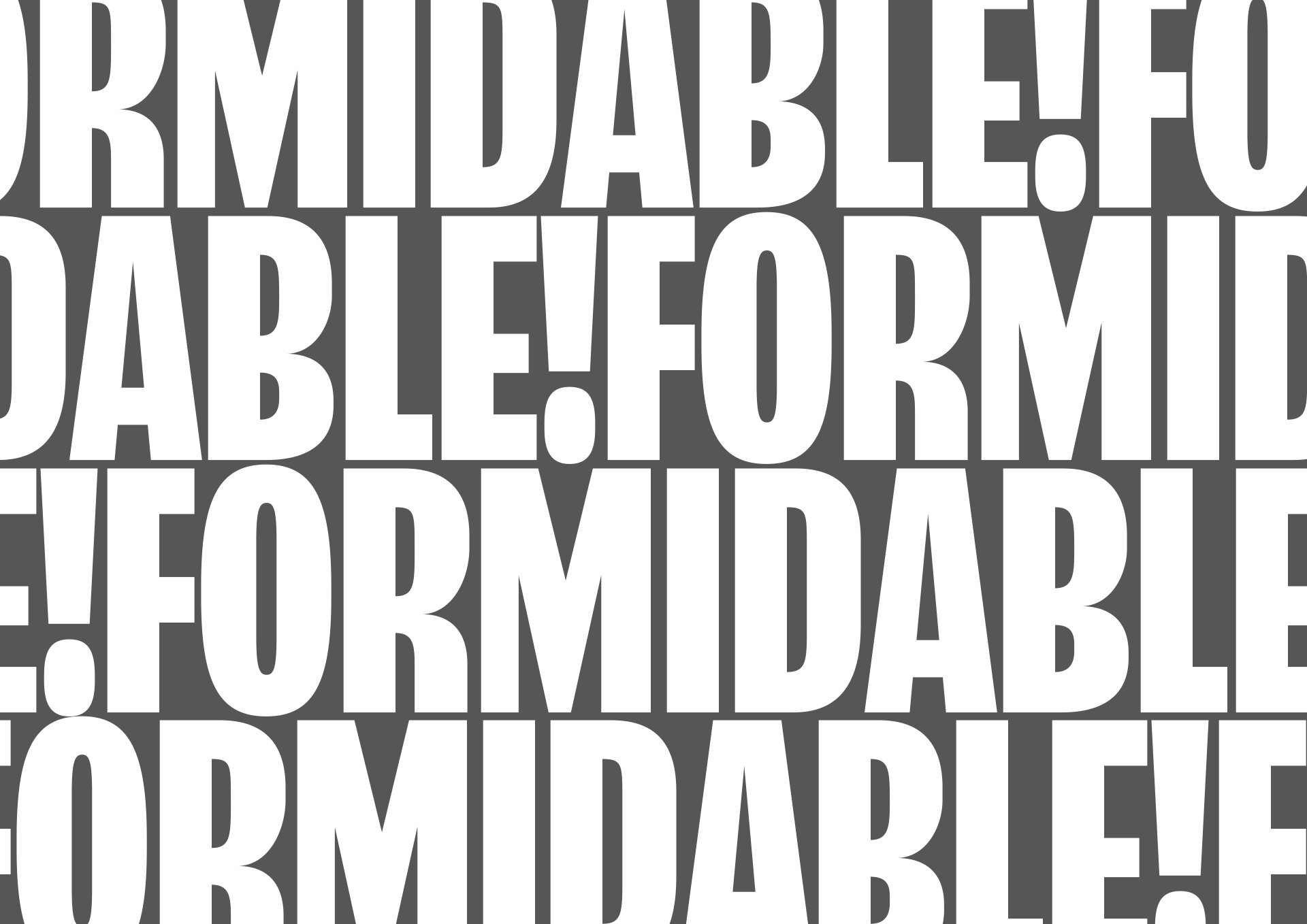
Locomotora
Locomotora display type family, designed by Gina Serret, was inspired by the Catalan jazz band La Locomotora Negra (Barcelona, 1971). This band started out as a quintet, but later grew to an orchestra of eleven, and now it has a total of sixteen members. The band’s style is strongly influenced by the most popular swing era musicians like Fletcher Henderson, Duke Ellington, and Count Basie. Locomotora was created to be used by the band as the main pillar for a powerful graphic identity system and to be used for the band’s collateral such as album covers.
After doing exhaustive historical research, Gina concluded that the main style of the family should be very compact to minimize whitespace in graphic compositions. Formally, this translated into very compressed letterform proportions that emphasize verticality, with heavy weight, super short ascenders and descenders, and special ligatures to make certain letter combinations even more compact. The main style is a combination of these features, with a mechanical look in the straight glyphs, but unique round and oblique endings that give the typeface its soul and changing rhythm.
Gina developed the full Locomotora typeface family based on a two-axis design space, with weight and width as variables. In addition to the main compressed black weight, a compressed thin weight and an expanded thin weight was added. From these three masters, Locomotora can be expanded to a wide range of weights and widths. Similar to jazz, these styles can then be mixed and matched together to form a cohesive look for any graphic applications.